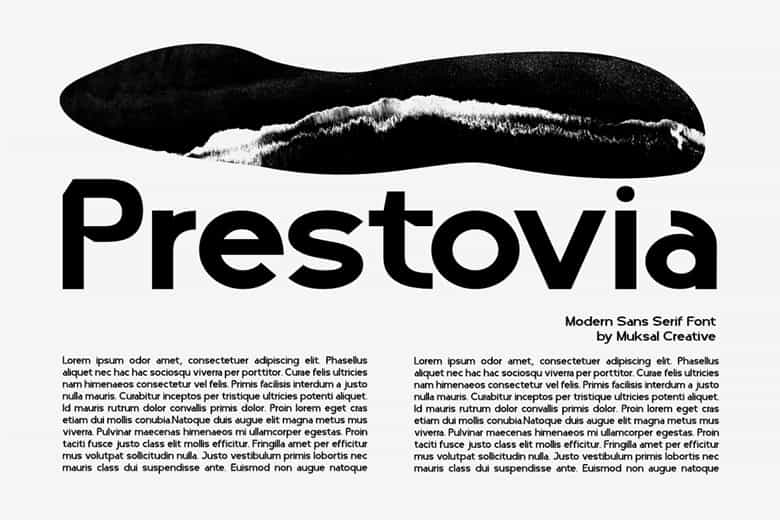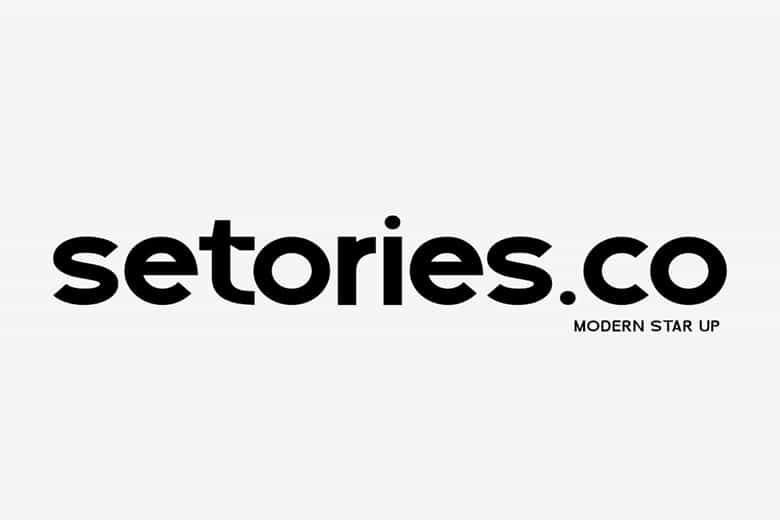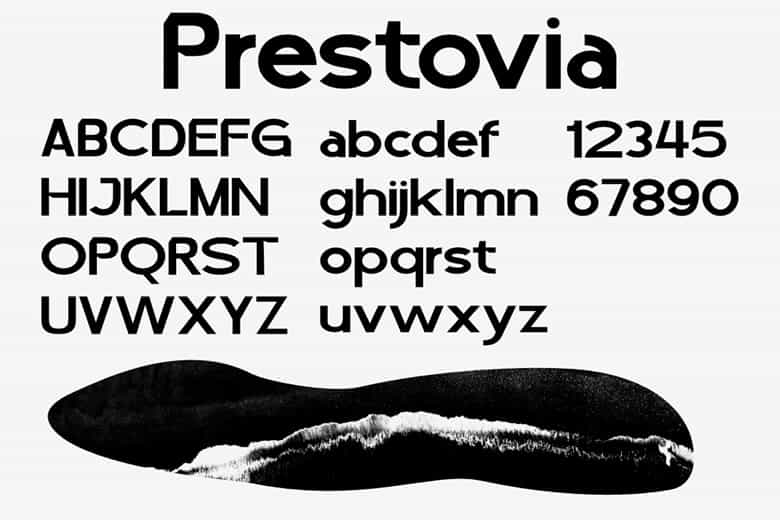
Prestovia Font
Prestovia is a clean sans serif font, with a touch of modernity making it ideal for formal individual personalities’ projects. A delicate textured design of Prestovia that has successfully combined graceful curves and accurately balanced sizes of letters gives it an elegant and luxurious look that makes it suitable for luxury branding, formal invitations, fashion editorials, and anything that will focus on the brand’s prestige and elegance.